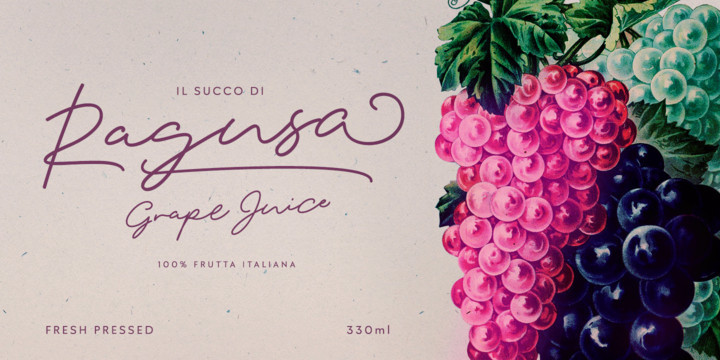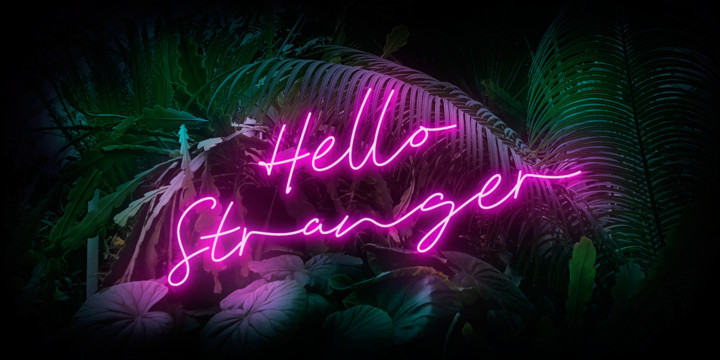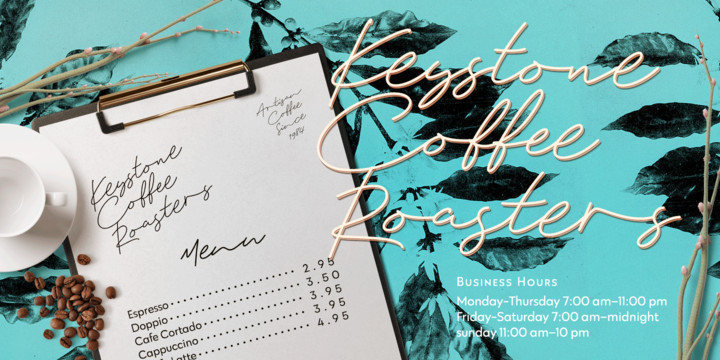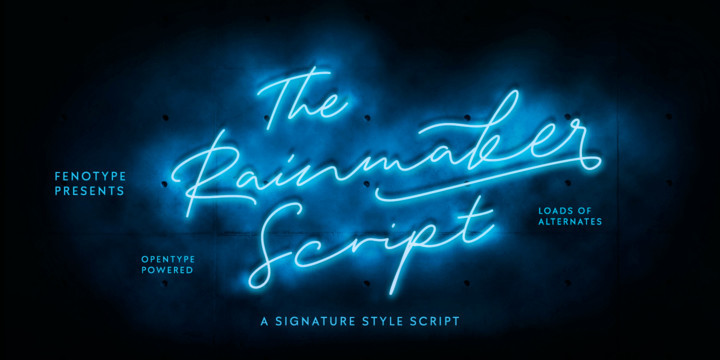
Rainmaker Font
I started Rainmaker Script by hand sketching a huge amount of letters to find the right tone. After having enough I picked the characters that I liked and begun composing a font out of them. With this method I ended up with the Rainmaker Script – an elegant signature style connected script with natural variation in the rhythm.